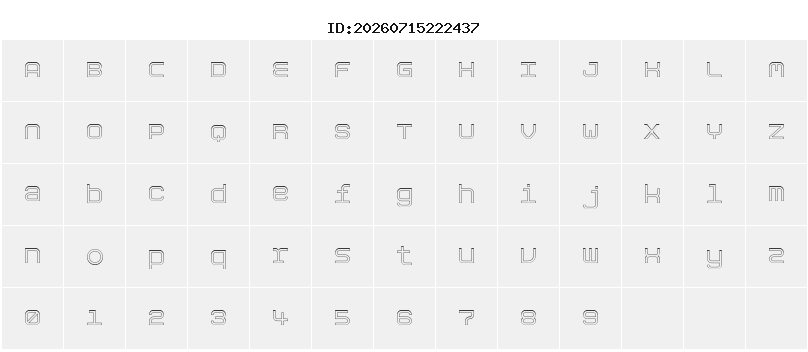
AspirinRefillIrregular Preview
• Font Name: AspirinRefillIrregular
• Full Font Name: AspirinRefillIrregular
About AspirinRefillIrregular.ttf
AspirinRefillIrregular.ttf is a modern, elegant sans-serif font designed for ultimate readability and visual harmony. Perfect for branding, headlines, web design, and print materials.